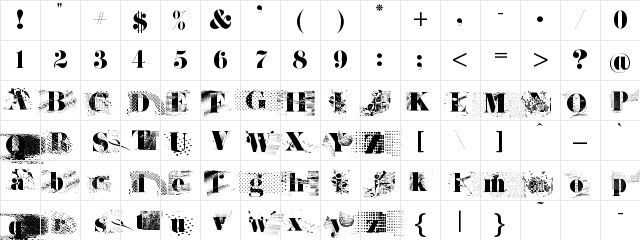
Janda Rage Regular Free Font
Janda Rage Regular
Complete Janda Rage Regular glyph index. Displaying only characters natively supported by Janda Rage Regular font.
Design Context for Janda Rage
Janda Rage is a composed and adaptable typeface that performs quietly and consistently across a wide range of design contexts.